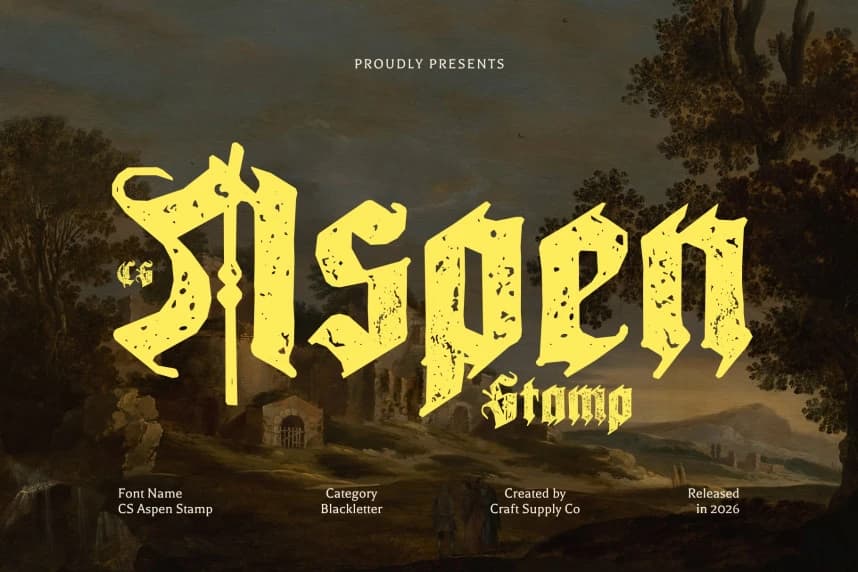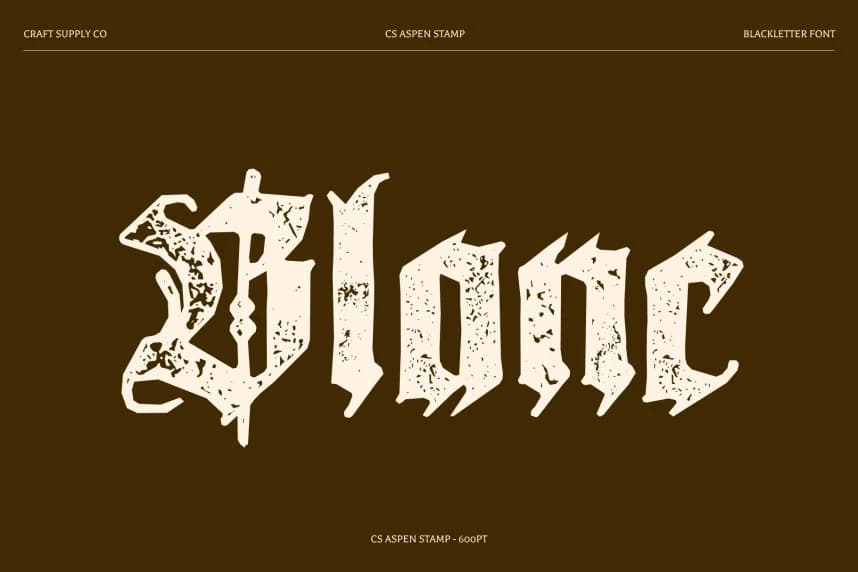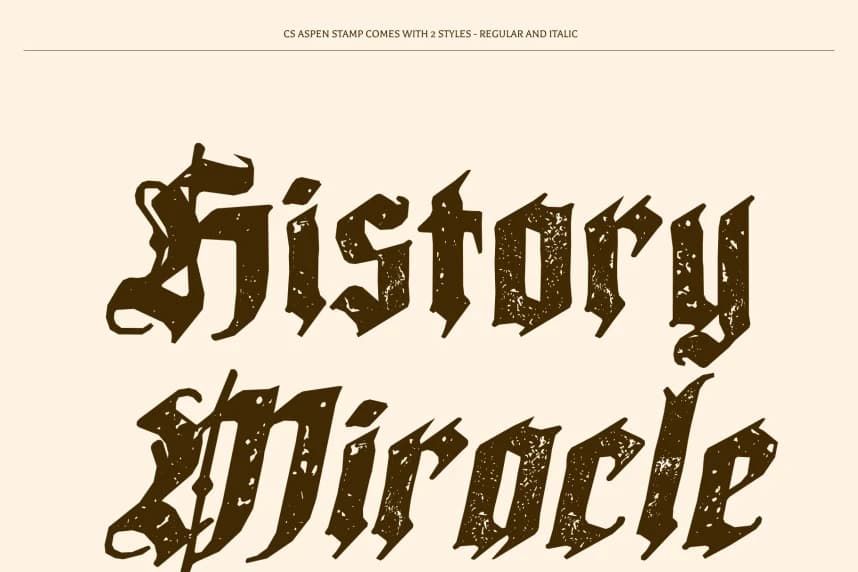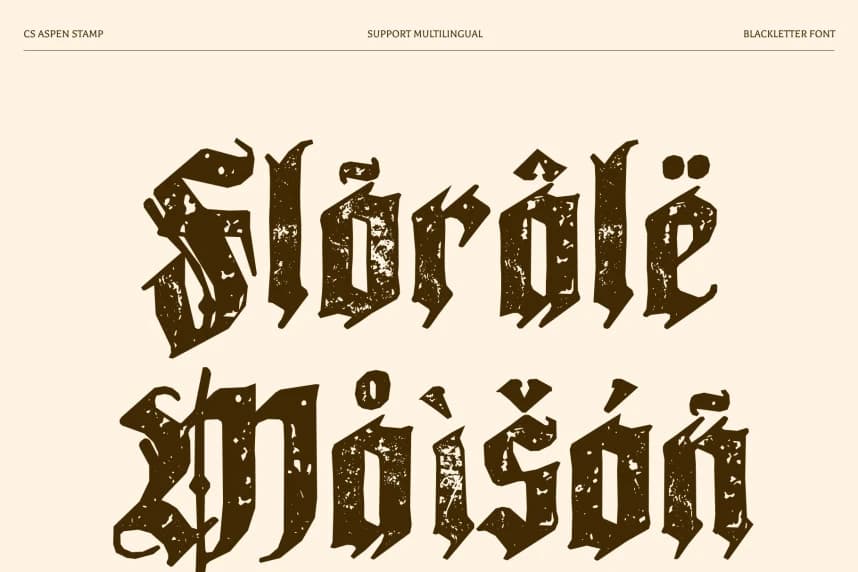
CS Aspen Stamp Font
CS Aspen Stamp Font – Blackletter Grandeur with Textured Authority Classic Gothic Style with a Stamped Finish. This intensifies its traditional Blackletter elegance with a subtle stamped texture that enhances its antique character.